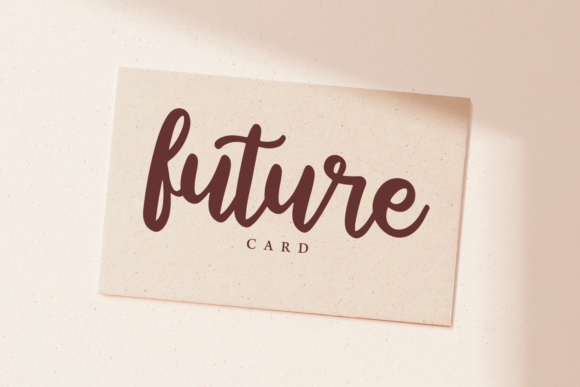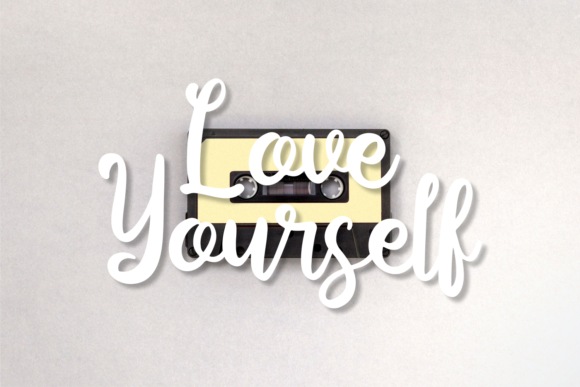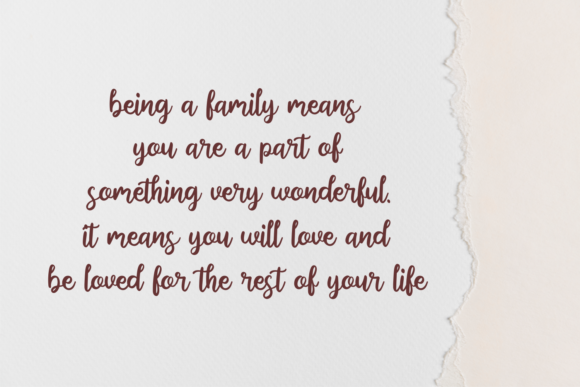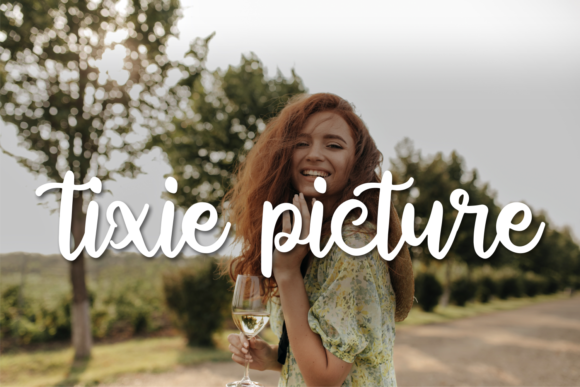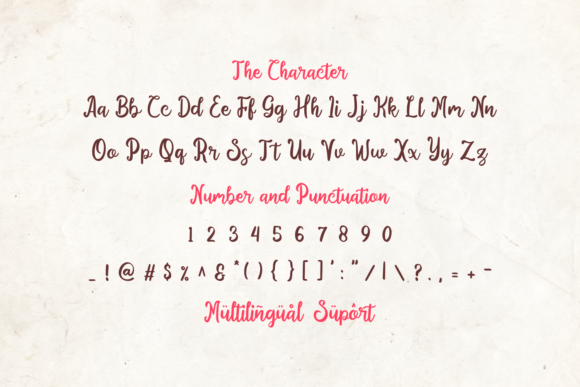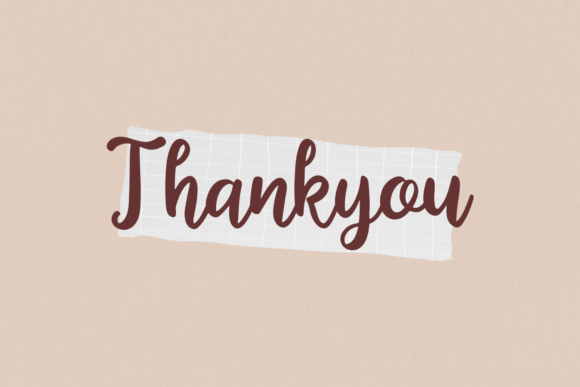
The Blasticia Font: A Delicate and Elegant Handwritten Masterpiece
I’ll never forget the moment I stumbled upon the Blasticia font. I was working on a project for a client who wanted a elegant and sophisticated look, but I was struggling to find the right font to bring their vision to life. That’s when I discovered Blasticia, and it was love at first sight! ✨
Blasticia is a delicate and elegant handwritten font that has stolen my heart. Its distinct and well-balanced letters make it a masterpiece, and its incredibly versatile style has won me over. In this article, I’ll share my honest review of Blasticia, provide a practical guide on how to use it, and explore similar fonts and alternatives.
The Good: What I Love About Blasticia
• ✨ Delicate and elegant handwritten style that’s perfect for a variety of design projects
• ✅ Well-balanced letters that make it easy to read and visually appealing
• 💫 Incredibly versatile style that works well for both digital and print designs
• 🎨 Highly customizable with OpenType features, glyphs, and stylistic alternates
The Not-So-Good: Small Quirks and Limitations
While Blasticia is an amazing font, there are a few small quirks to be aware of: 🤔
• ⚠️ Limited availability of certain characters and glyphs in some platforms
• ⚠️ May require some manual kerning to achieve optimal results
Blasticia was designed with the intention of creating a beautiful, elegant handwritten font that would capture the essence of luxury and sophistication. The designer drew inspiration from classic calligraphy and modern typography to create a unique and versatile font that’s perfect for a variety of design projects.
Q: What is Blasticia font?
Blasticia is a delicate and elegant handwritten font that’s perfect for a variety of design projects.
Q: Is Blasticia suitable for body text?
While Blasticia is a beautiful font, it’s best suited for headlines and titles. For body text, you may want to consider a more readable font.
Q: Is Blasticia available in multiple languages?
Blasticia is available in a range of languages, including English, Spanish, French, and more.